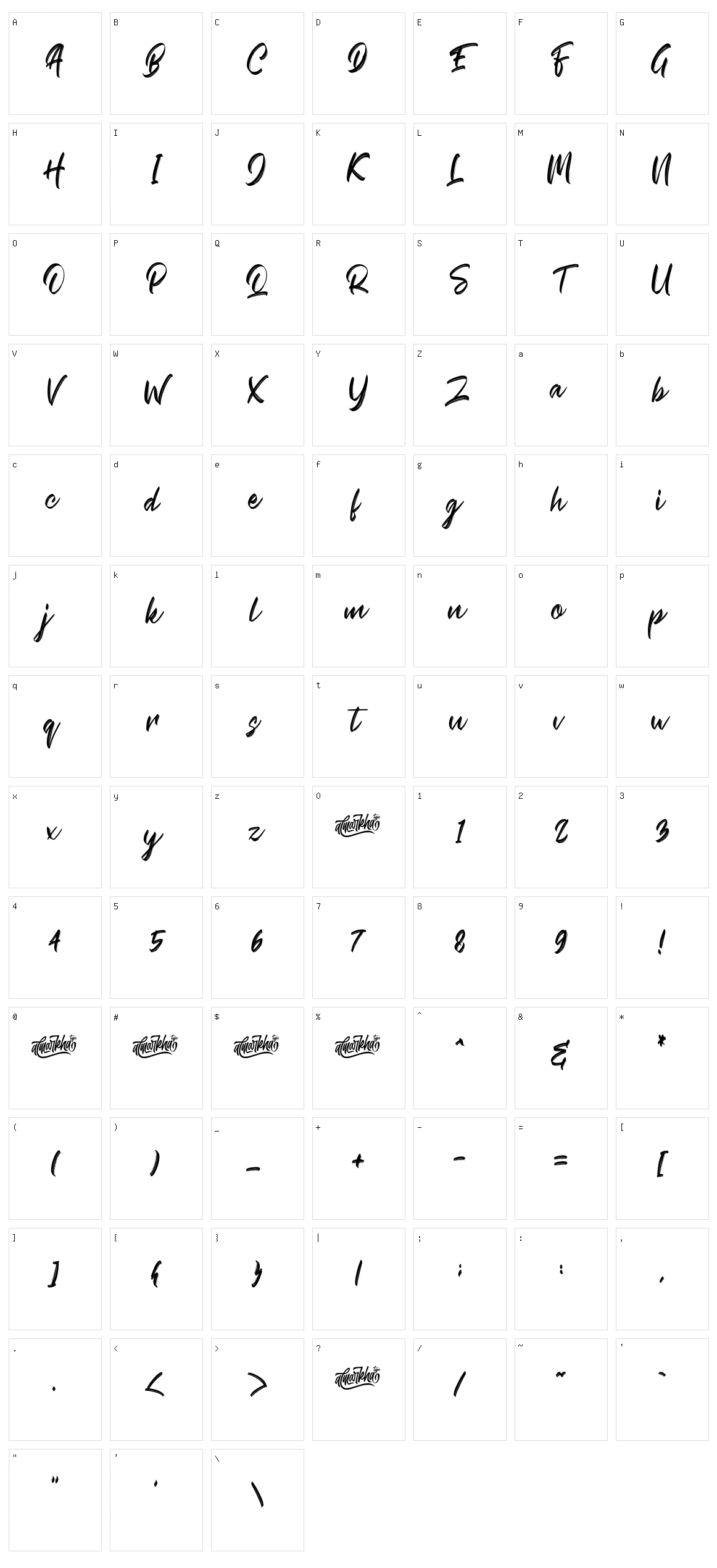
The free font Crash Soul is carefully designed by Almarkhatype, showcasing a thoughtful balance of creativity and usability and falls under the Script font style. When you download the ZIP file, it contains only 575.4 KB of font files, making it lightweight and quick to download. Please review the license details below to understand permitted usage and distribution rights. If license information is not available, we recommend using this font for personal projects only or contacting the author directly for commercial usage permissions.